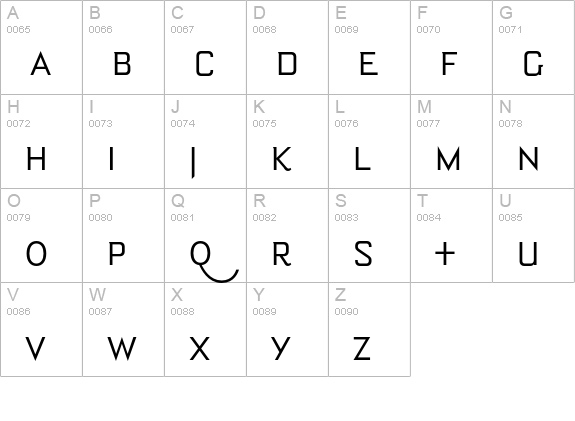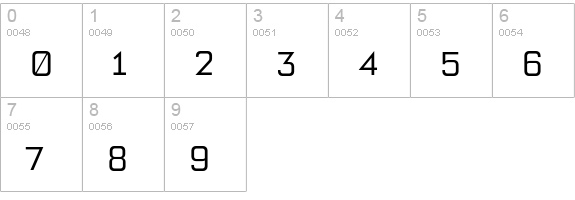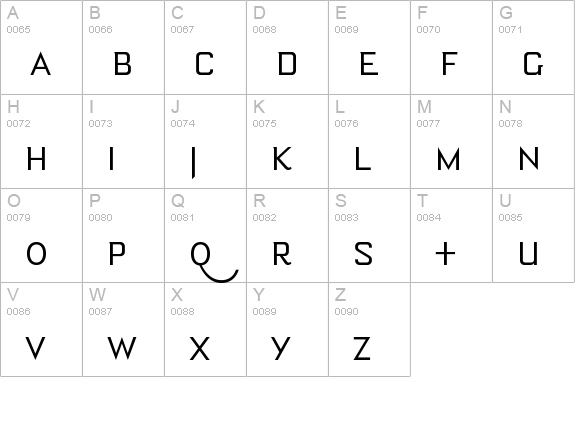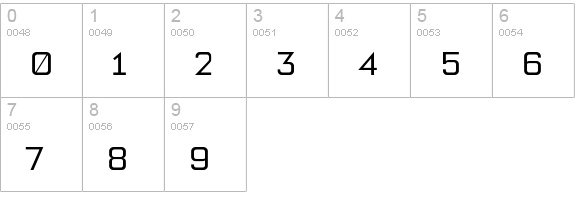
Bourgeois MedAlt Font Details
Bourgeois MedAlt font exudes sophistication and elegance with its unique blend of classic and modern design elements. This versatile typeface is perfect for adding a touch of refinement to any project, whether it be for branding, editorial design, or signage. With its medium weight and distinctive alternate characters, Bourgeois MedAlt font strikes the perfect balance between traditional and contemporary aesthetics. The clean lines and subtle flourishes of this font make it a standout choice for those looking to elevate their designs with a touch of luxury. What's even better is that Bourgeois MedAlt font is available for free download at FontsMarket.com. So go ahead and enhance your projects with this exquisite font that is sure to impress and elevate your designs to new heights.